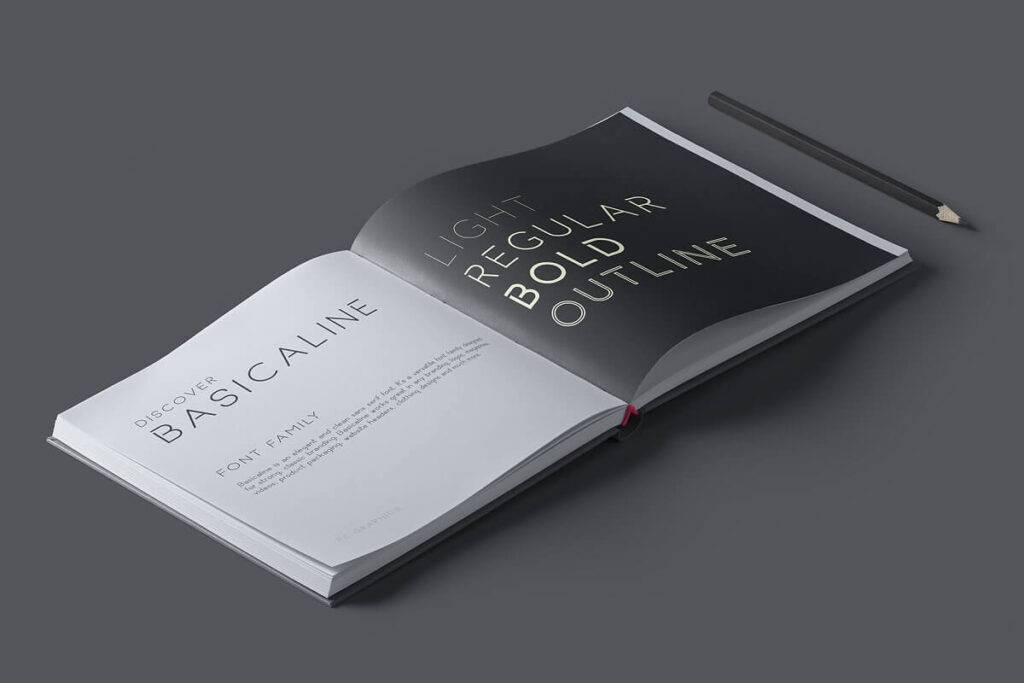
Basicaline Font
This is a clean, rounded sans serif typeface that looks great in any situation. Basicaline Typeface is now available. Basicaline is a sophisticated sans serif font. It’s a multi-purpose font family that’s perfect for vintage branding. Uppercase, Lowercase, Numbers, Punctuation, Symbols, and more are all included in this lovely font. The options that are available Light, Regular, Bold, Outline, and Multilingual are the accented characters in this Typeface.
It also includes capital letters. Stylistic Alternates, Standard Ligatures. The Font is compatible with Windows, Apple/Mac, Linux, Cricut, Silhouette, and other cutting machines. It’s simple to convert the lovely typography to a web font. The font also does have the maximum quality of a Display font. As a result, you can also use it as a display font. Converting the gorgeous typography to a web font is simple. The typeface also has the highest quality possible for a Display font. As a result, it can be used as a display typeface as well. In my perspective, this typeface resembles a Sunday afternoon font. The font is designed and shared by RC graphics.
This is one of those fonts that is ideal for artistic projects. It goes with everything, from the phrases to the shopping bag. Basicaline looks fantastic in logos, periodicals, films, product packaging, website headers, and garment designs, among other things.
| Style | Sans serif |